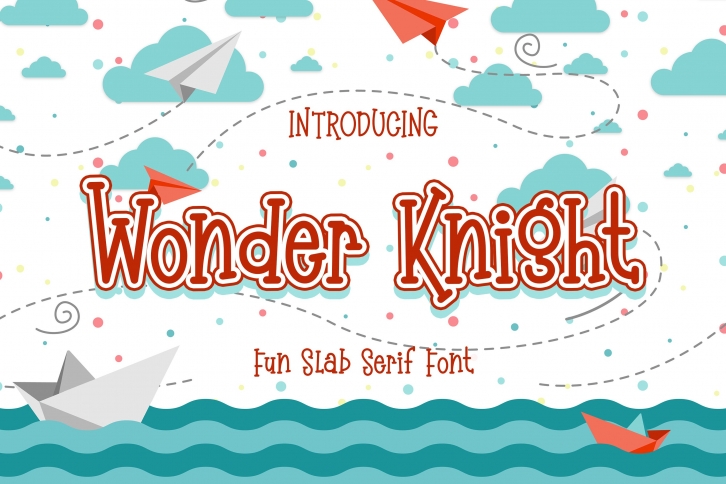
Wonder Knight is a beautiful font that was designed by Almarkhatype. It's a great choice for designers and creatives who need such a font. It was released on March 6, 2021 and the file size is 18.39 MB. Wonder Knight may give a more youthful, expressive and casual look to your project. It is a very beautiful, refined, elegant, and high-quality font.